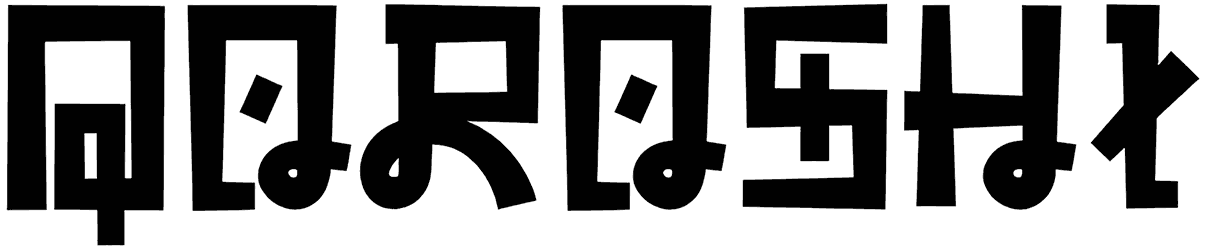
Qoroshi Font
Qoroshi embodies the unique combination of culture and modernity that can create a balanced design. By creating negative space and areas between characters, this samurai font establishes a sense of calm that is truly mesmerizing.
So if you want to give a new look to your digital products or you like geometric designs, use this timeless style and don’t worry about missing numbers. This foreign font offers new ways to express yourself through typography, which solves your poster or clothing design needs.